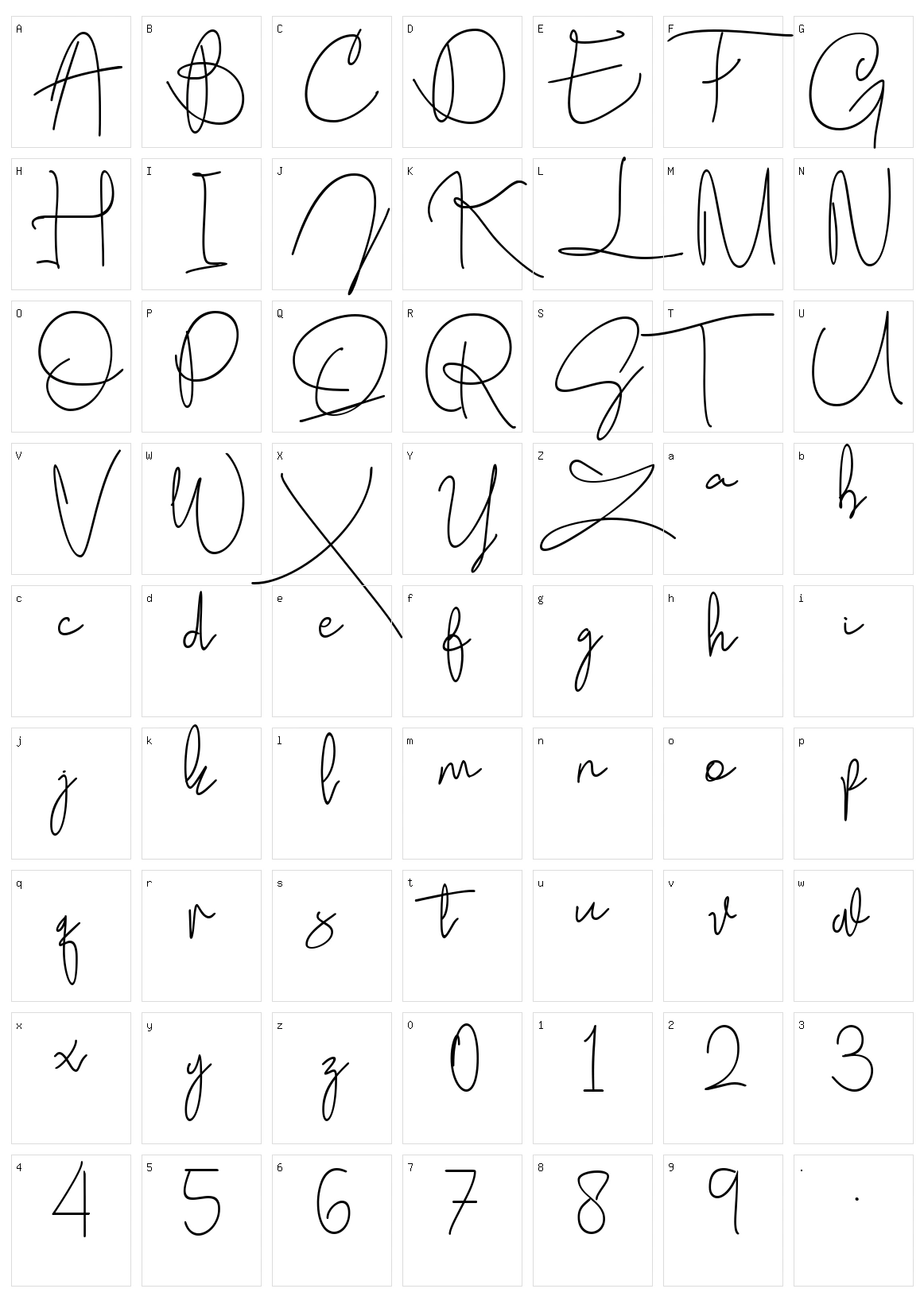
The free font Argapura is carefully designed by Intuisi Creative, showcasing a thoughtful balance of creativity and usability and falls under the Script font style. When you download the ZIP file, it contains only 22.78 KB of font files, making it lightweight and quick to download. Please review the license details below to understand permitted usage and distribution rights. If license information is not available, we recommend using this font for personal projects only or contacting the author directly for commercial usage permissions.